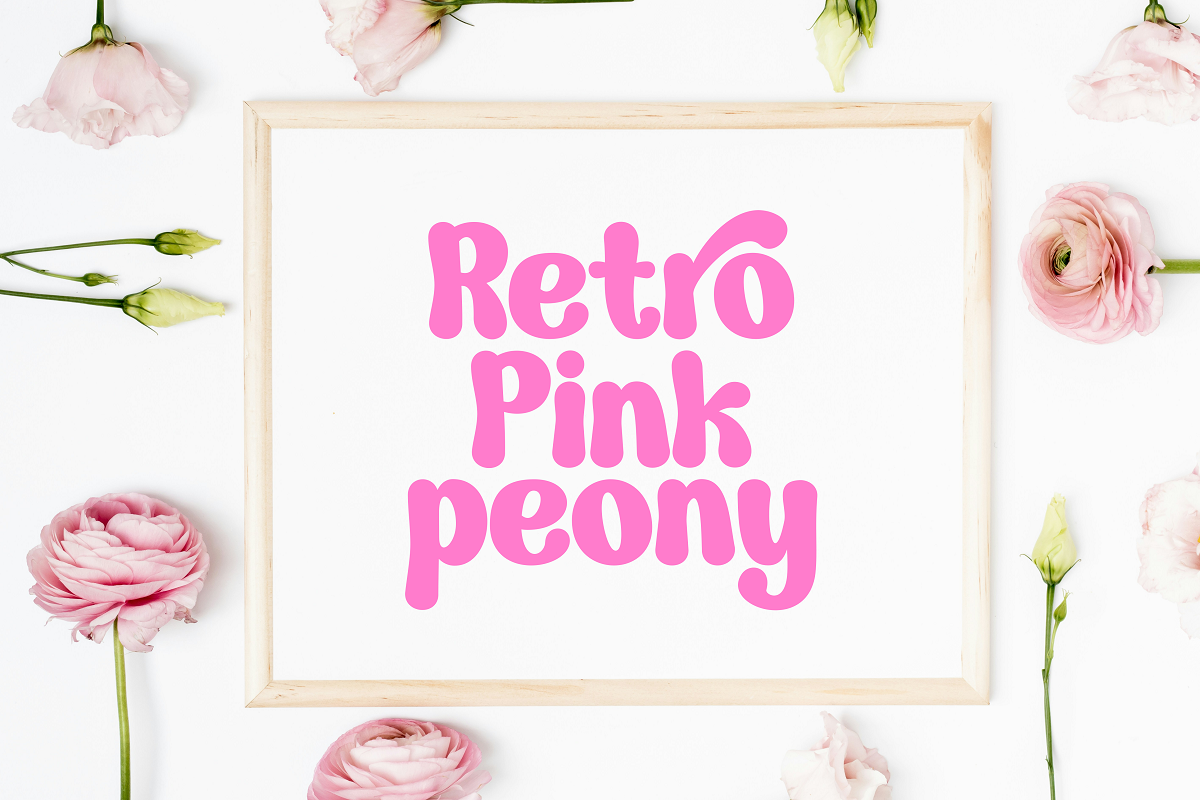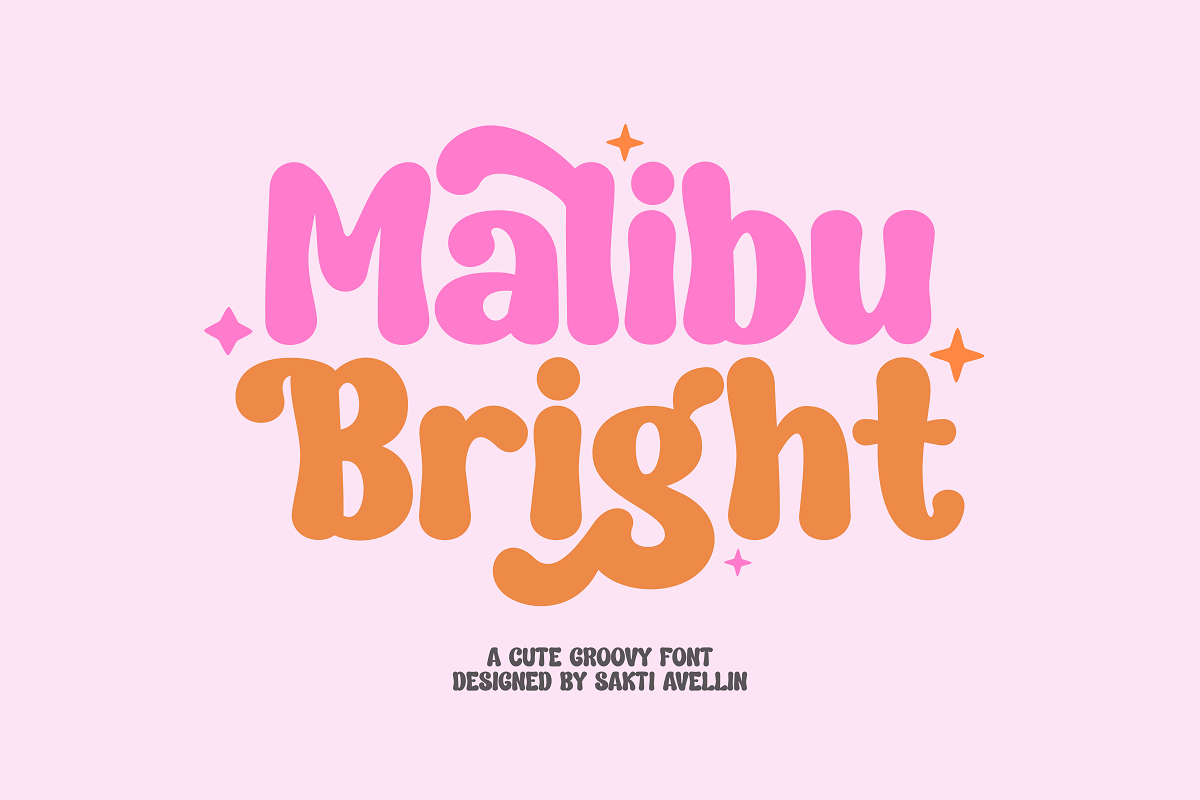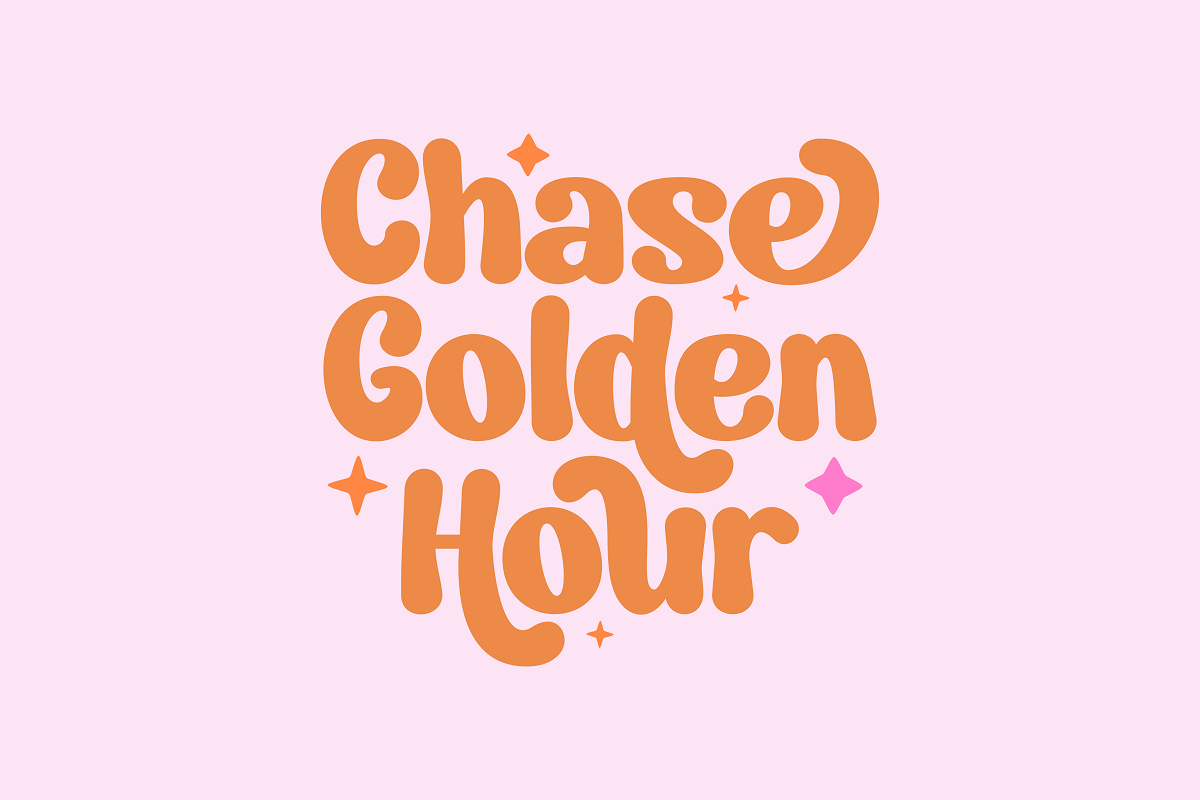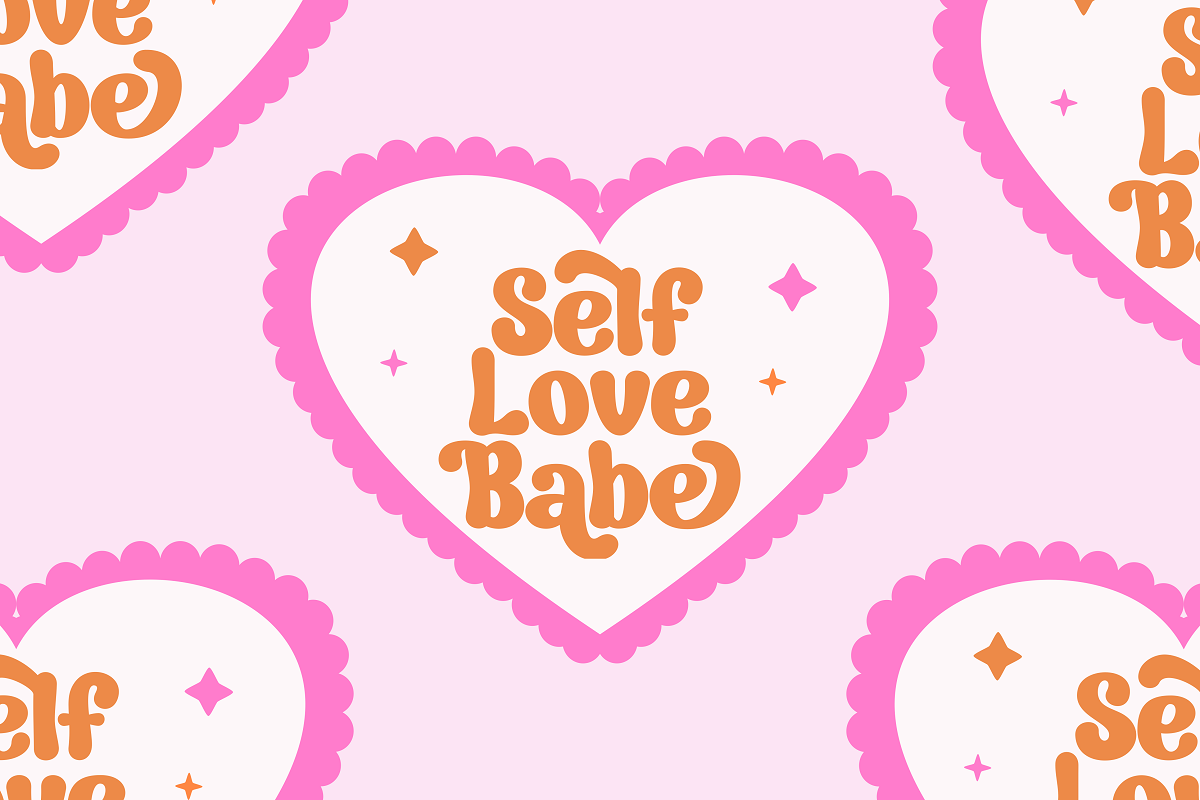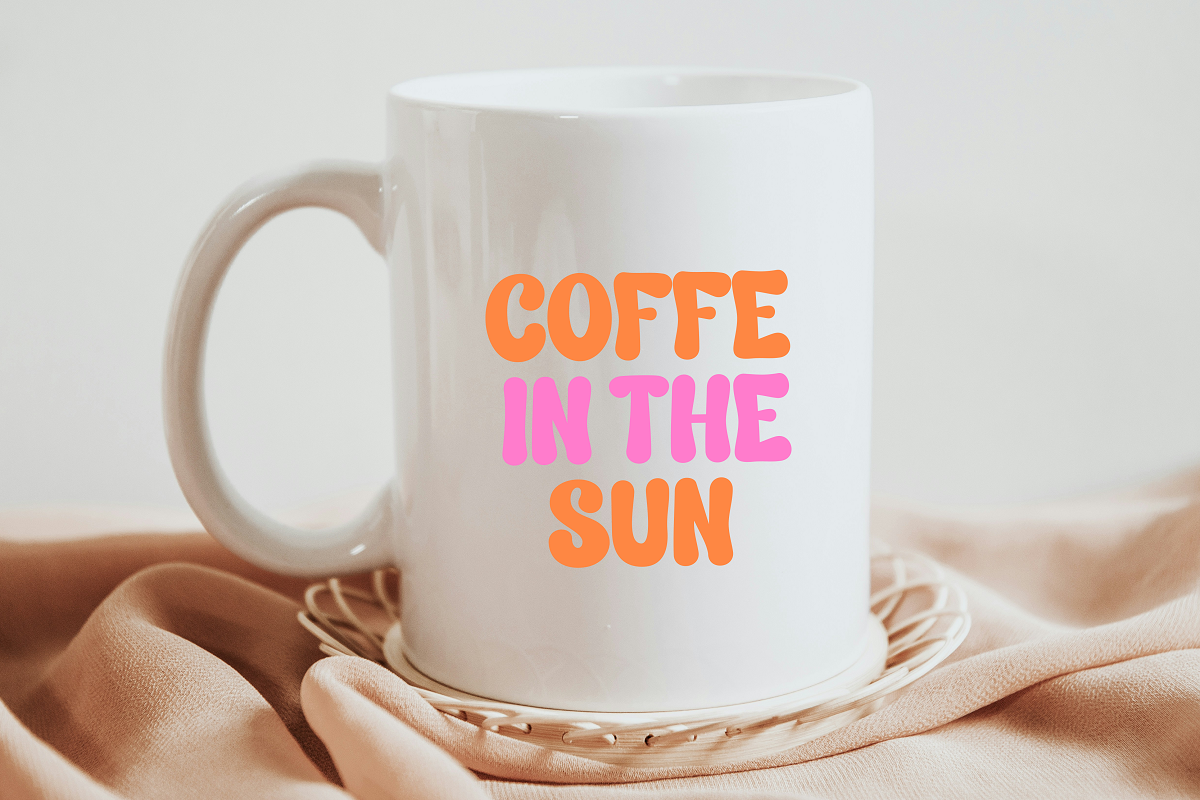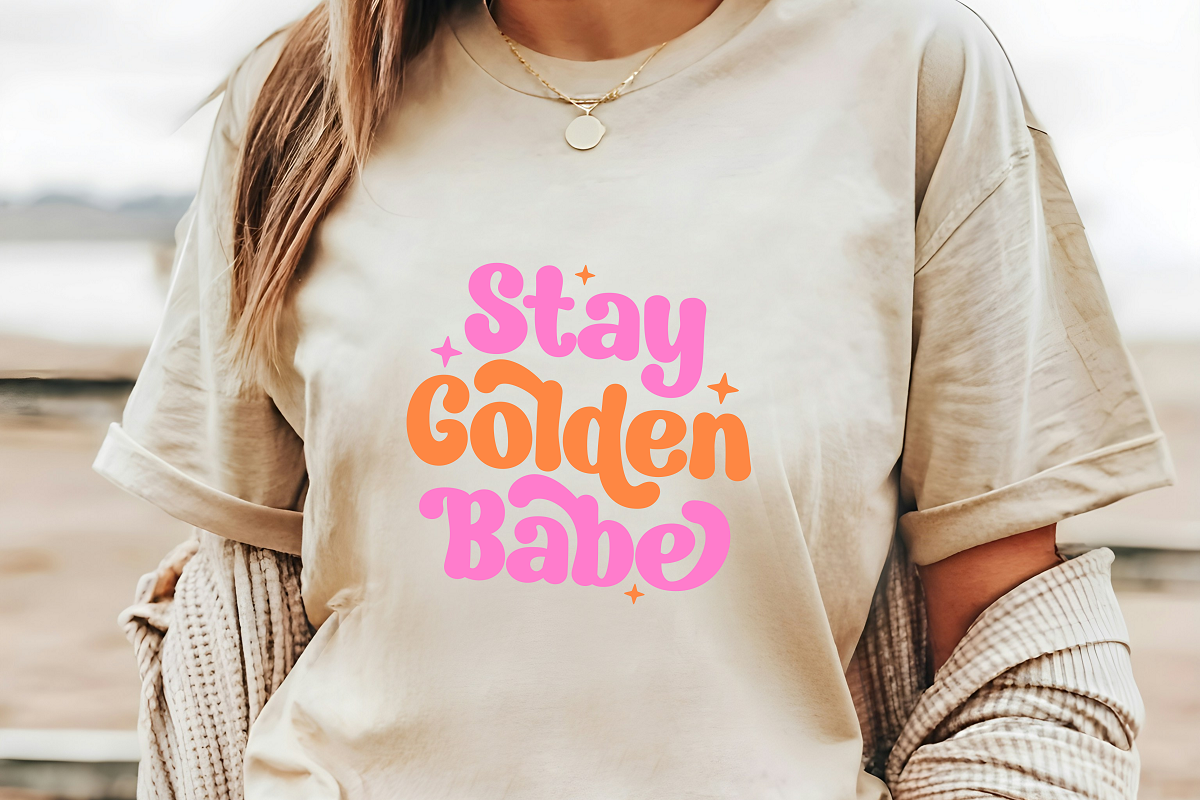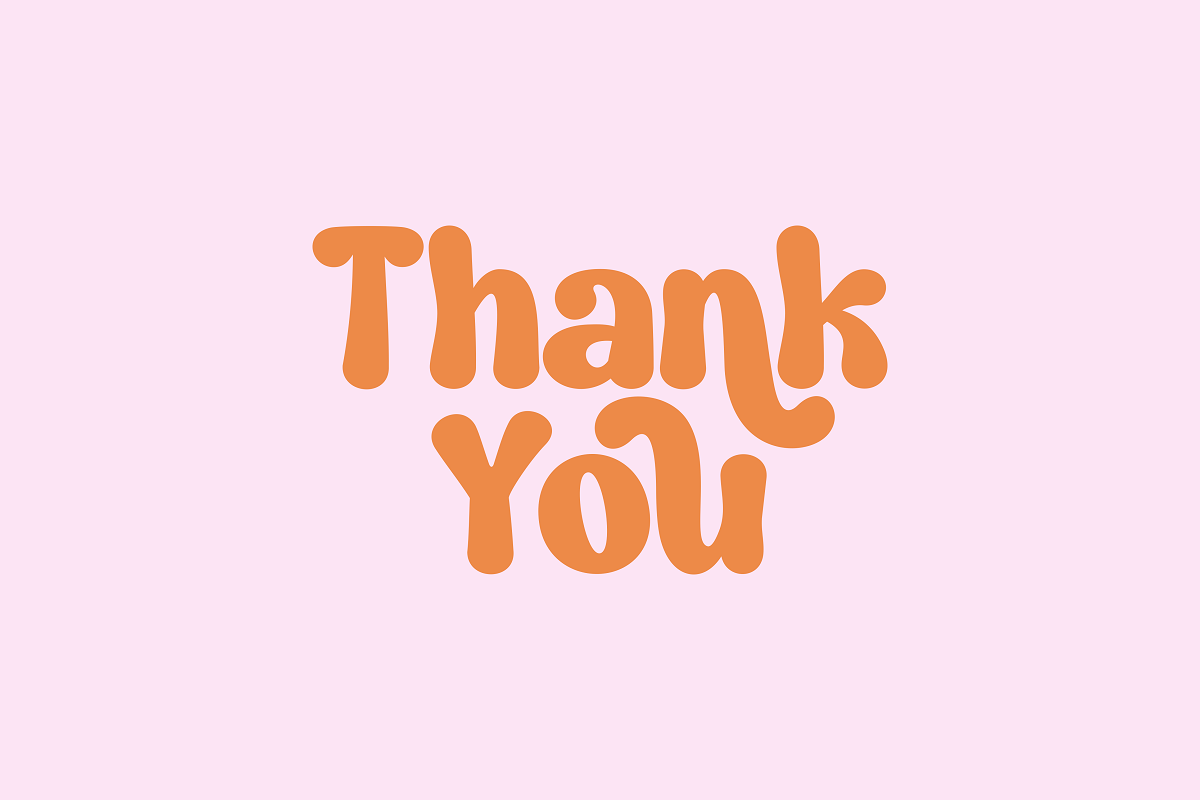
Malibu Bright - Cute Groovy Font
Malibu Bright is a vibrant, soul-warming, and incredibly cute groovy font that perfectly captures the sun-drenched, nostalgic aesthetic of the 1970s beach culture. This chunky display font features soft, flowing curves and a playful, rhythmic bounce, making it essential for summer branding, trendy retro logos, beach-themed t-shirt designs, vibrant posters, and eye-catching social media graphics. Its high-impact, thick letterforms ensure it stands out as a powerful display typeface for headlines and product packaging, appealing to a modern audience that loves nostalgic funk, boho style, and cheerful design. Bring a splash of sunshine to your creative projects with this delightful and bold groovy font!